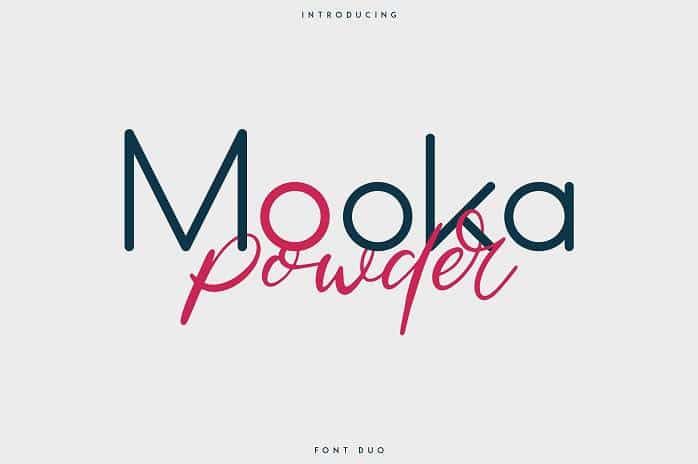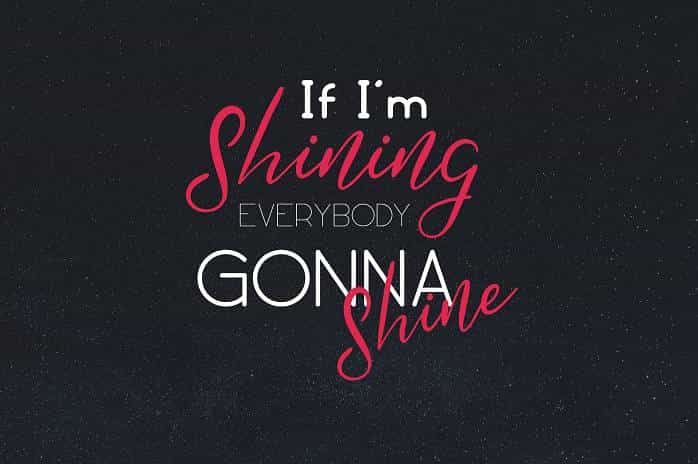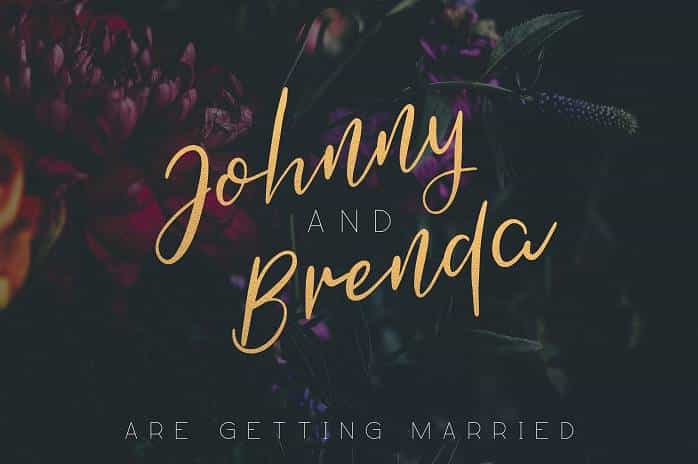
Introducing Mooka Powder Font Duo. Mooka Powder is a contemporary, clear font duo consisting of 7 font styles, ligatures and multilingual support. It is an extremely flexible font that looks good in both big and small sizes. It is ideal to use Mooka Powder in branding projects, home-ware designs, product packaging, magazine headers, or as a cool text overlay to any background image.